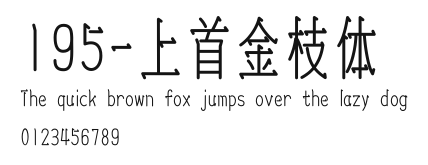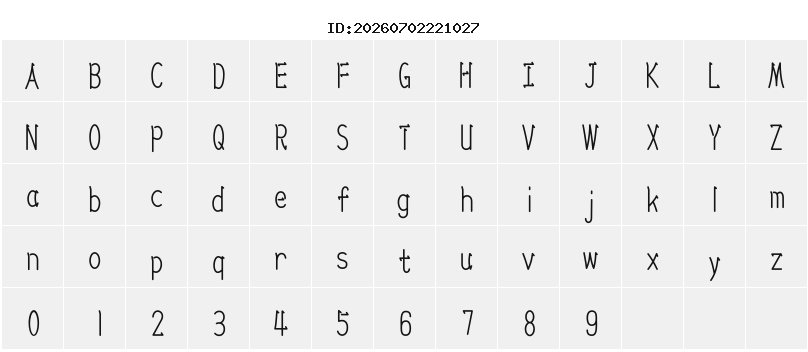
195-上首金枝体 Preview
• Font Name: 195-上首金枝体
• Manufacturer: 上首造字
About 195-上首金枝体.ttf
195-上首金枝体.ttf is a modern, elegant sans-serif font designed for ultimate readability and visual harmony. Perfect for branding, headlines, web design, and print materials.